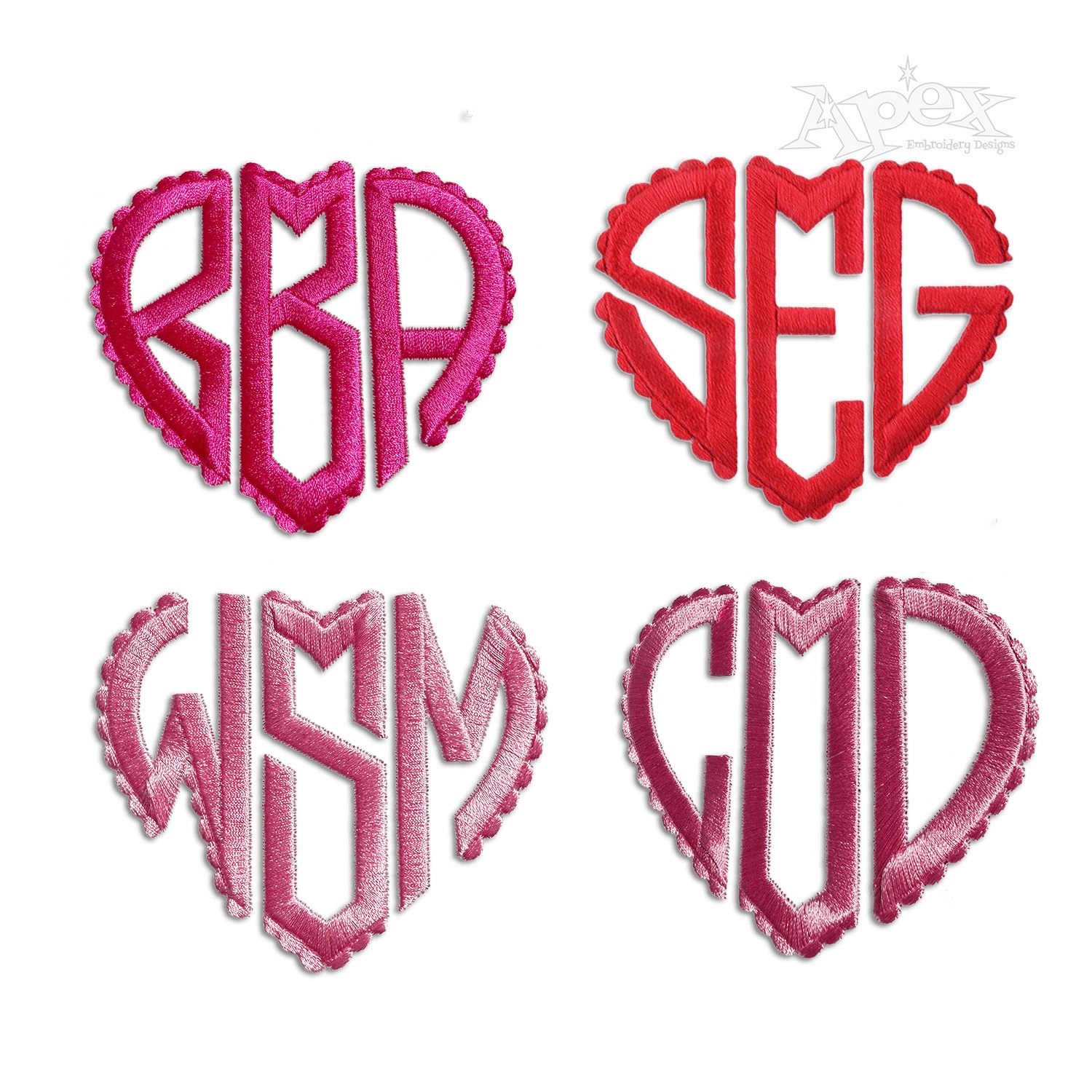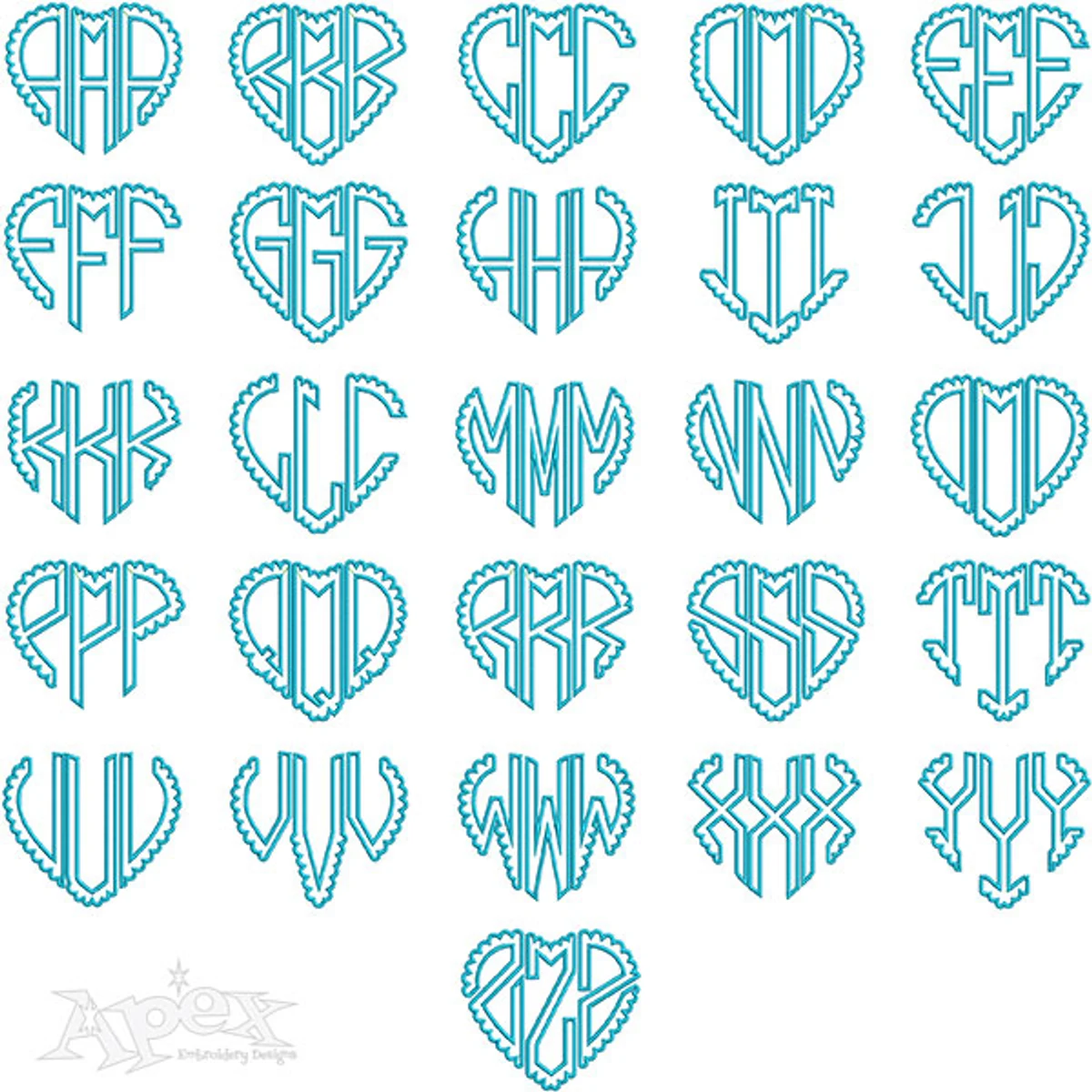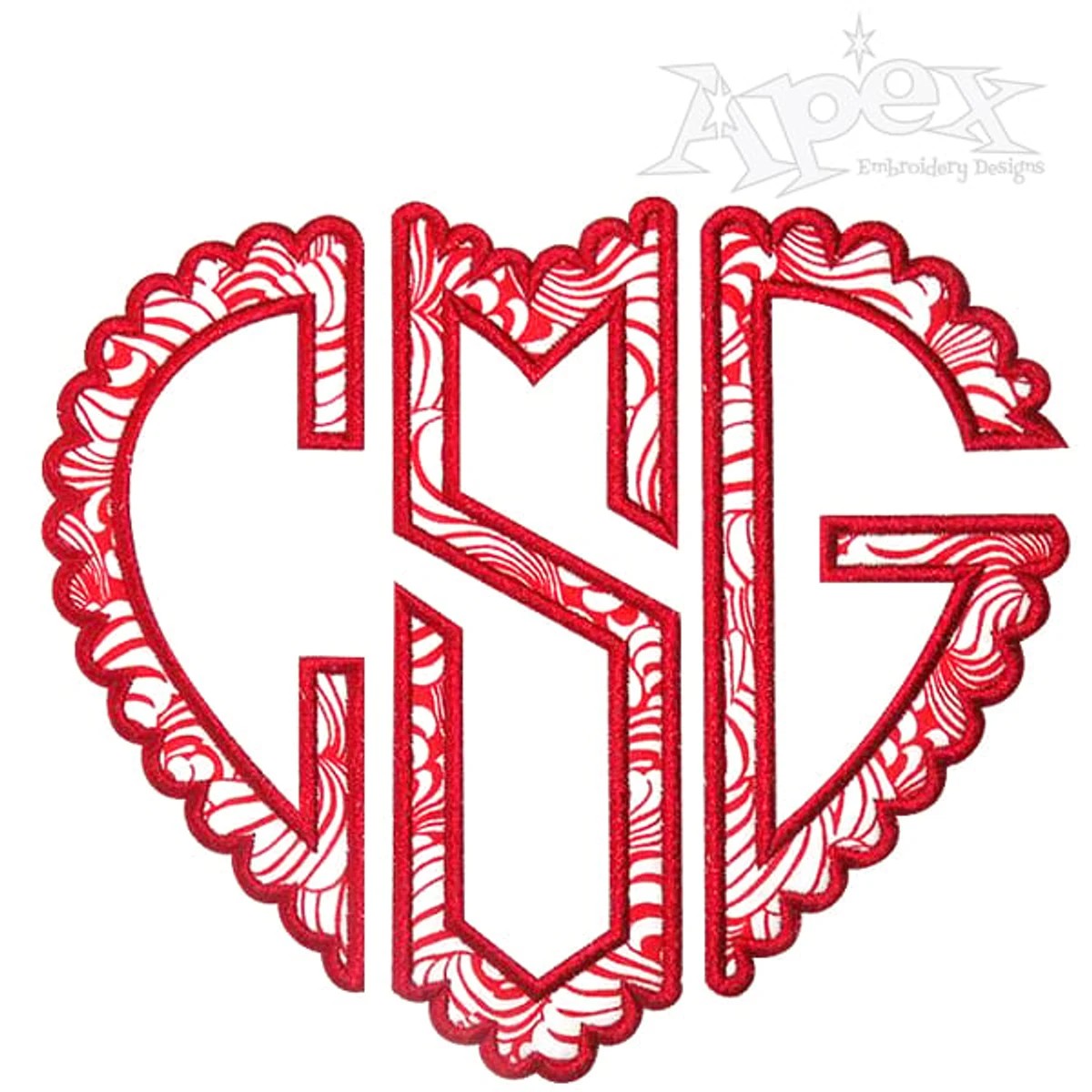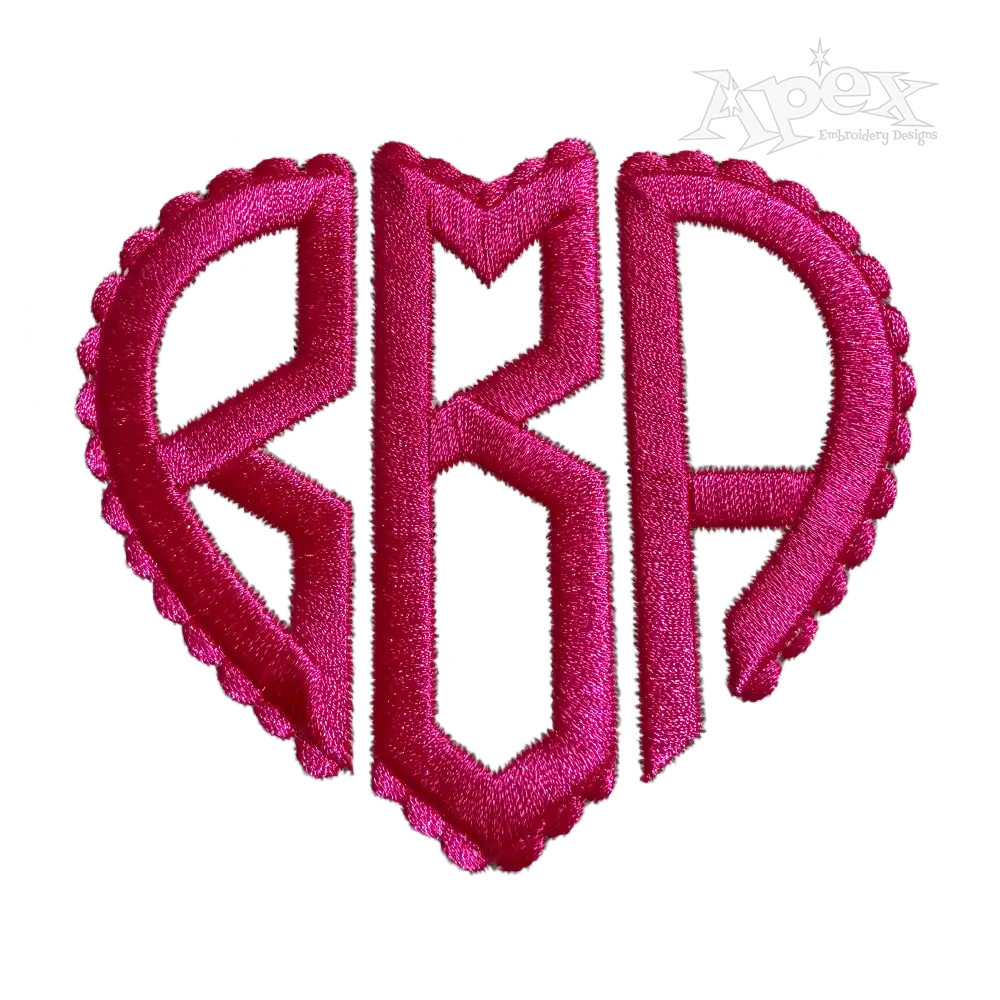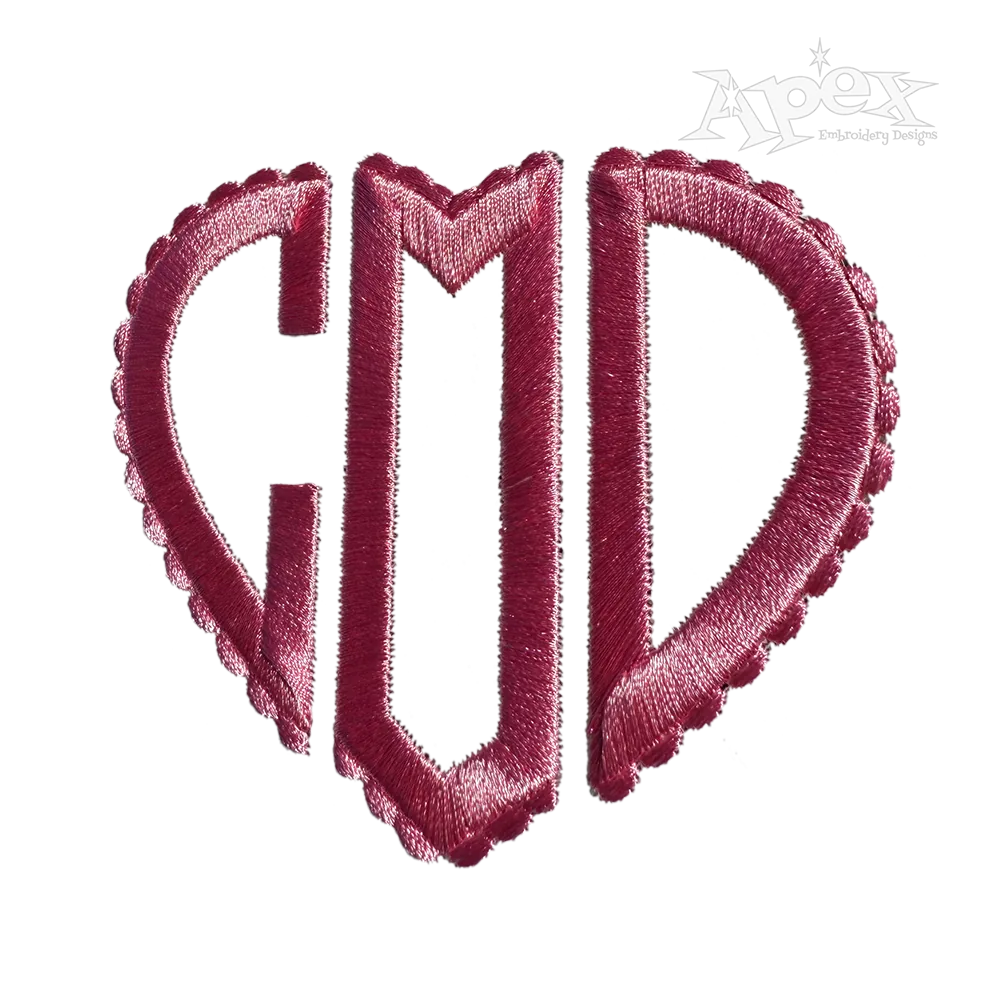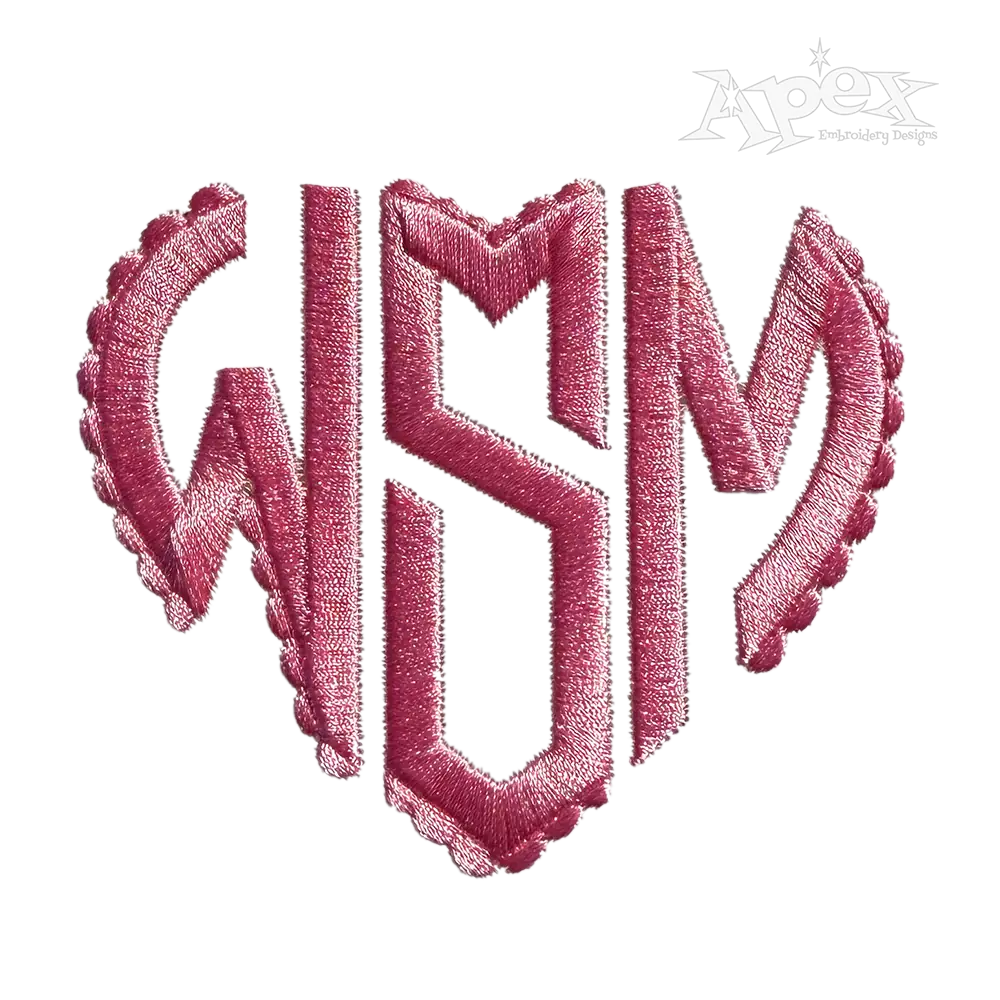
Heart Scalloped Monograms Embroidery Fonts
Heart scalloped monogram font lovers, this is the complete alphabet ? every size set of our scalloped-heart letterform bundled into a single download, from dainty 1" initials to bold 8" applique letters, so one purchase covers a hankie, a hoodie, and everything in between.
- Regular - 1", 2" and 3" high letters. The original filled scalloped-heart alphabet.
- Large - 4", 6" and 8" high letters. An oversized applique.